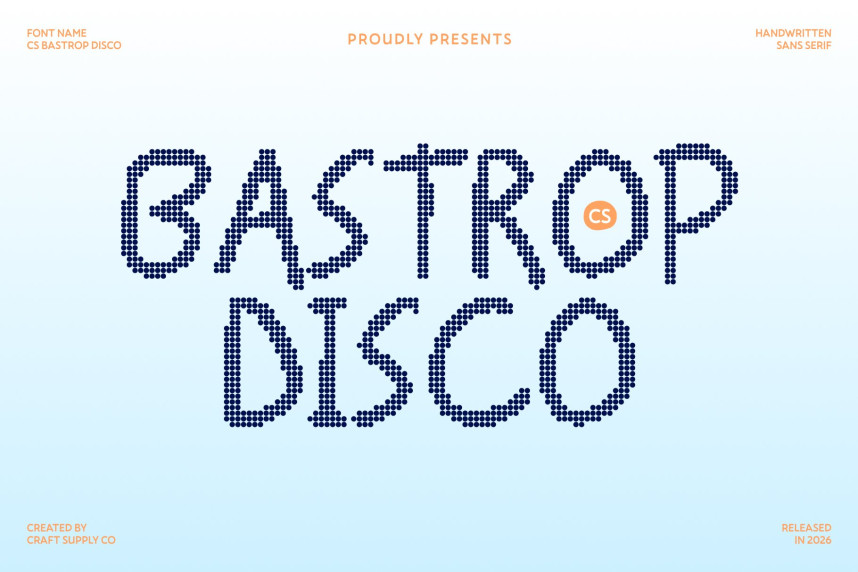
CS Bastrop Disco Font
CS Bastrop Disco Font – Where Playfulness Meets Personality Cute Handwritten Sans Serif with Disco Cheer. This is a charming handwritten sans serif font that radiates warmth, joy, and upbeat personality. With its rounded shapes and smooth, friendly strokes, it captures the spirit of carefree creativity now infused with a subtle disco bounce. Every letter feels lively and expressive, designed to spark smiles and bring cheerful energy to your designs.